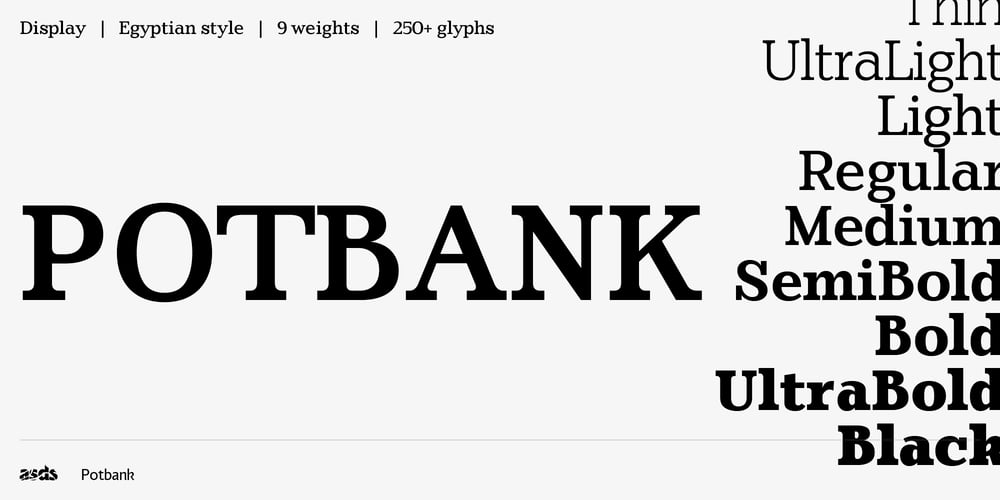
Potbank Font Family was designed by Alister Shapley and published by Applied Systems Design Studio. Potbank contains 9 styles and family package options. Like many cities in the Midlands and North of England, Stoke-on-Trent has a rich history linked to making and industry. In Stoke’s case it was pottery. In the early 1900s bottle kilns could be seen covering the landscape of the six towns making up Stoke-on-Trent with hundreds of factories producing some of the best ceramics in the world. But by the 1990s most of these had gone. Torn down for development of housing or just left to rot. During the next few decades Stoke continued to change. The industry was in a decline and Stoke itself was seen as another poor midlands city with a dwindling industry.Then in 2008, Spode, one of the largest and most famousceramics factories in Stoke entered into administration. Pens cast aside, drawings left half finished, designs left in the turned-off kilns; Spode factory was abandoned. This was a real shock and the way everything was getting thrown into skips to be put on the tip was heartbreaking. Thankfully people salvaged some of the technical drawings, sketch design, old sample pieces and ceramics that people hard worked so hard on. Potbank has been in development over a number of years taking inspiration from the heritage and designs from the ceramics industry. It has a mixed Clarendon and Antiqua style structure with its main purpose to be used as a printed type.